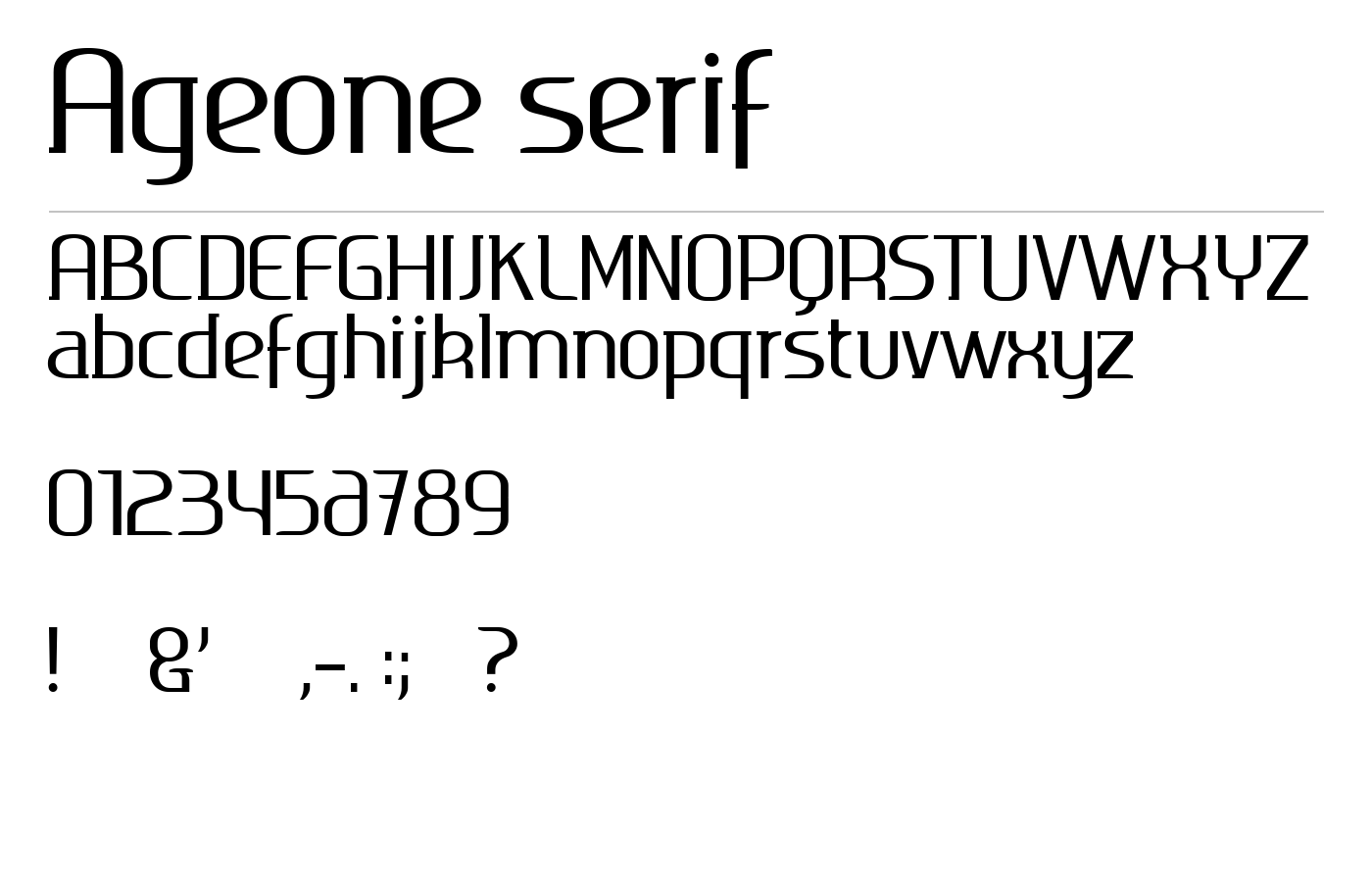
Ageone Serif is a modern, condensed serif font with a sleek, geometric style and low stroke contrast, offering a minimalist yet distinctive appearance. Its thin, unbracketed serifs and unique letterforms, such as the single-story 'a' and stylized 'g,' give it a contemporary and elegant feel, making it ideal for fashion, editorial headlines, and branding that seeks a refined, cutting-edge look. This font works well where space is limited but a strong, sophisticated personality is desired.
Ageone serif Font
About Ageone serif Font
| Font family | Ageone serif Font |
| Designer | Benot Sjholm |